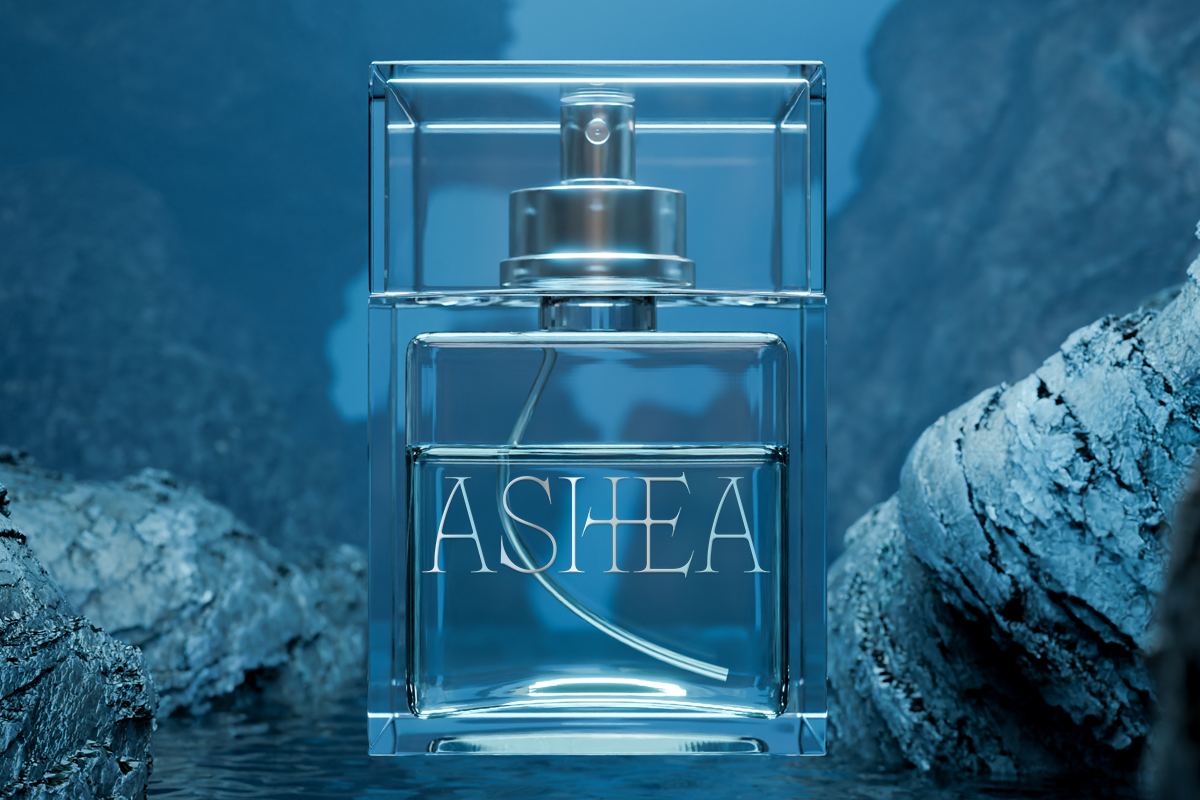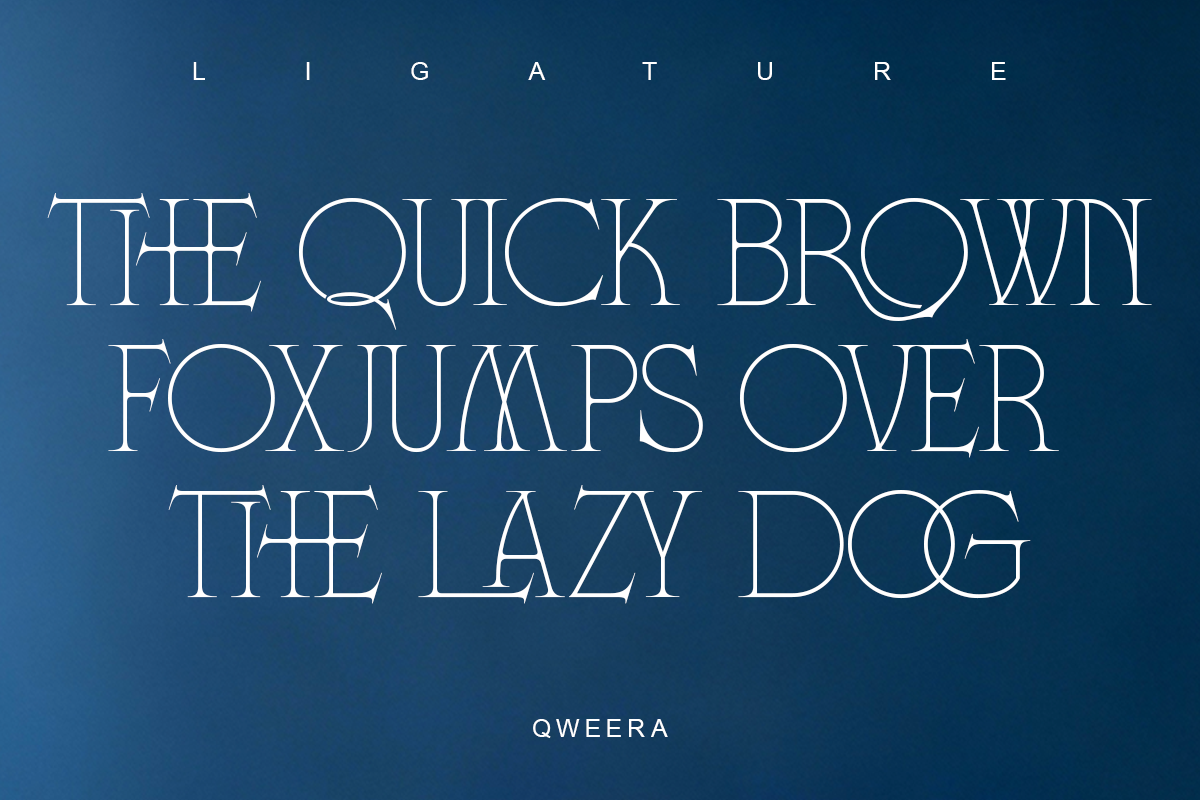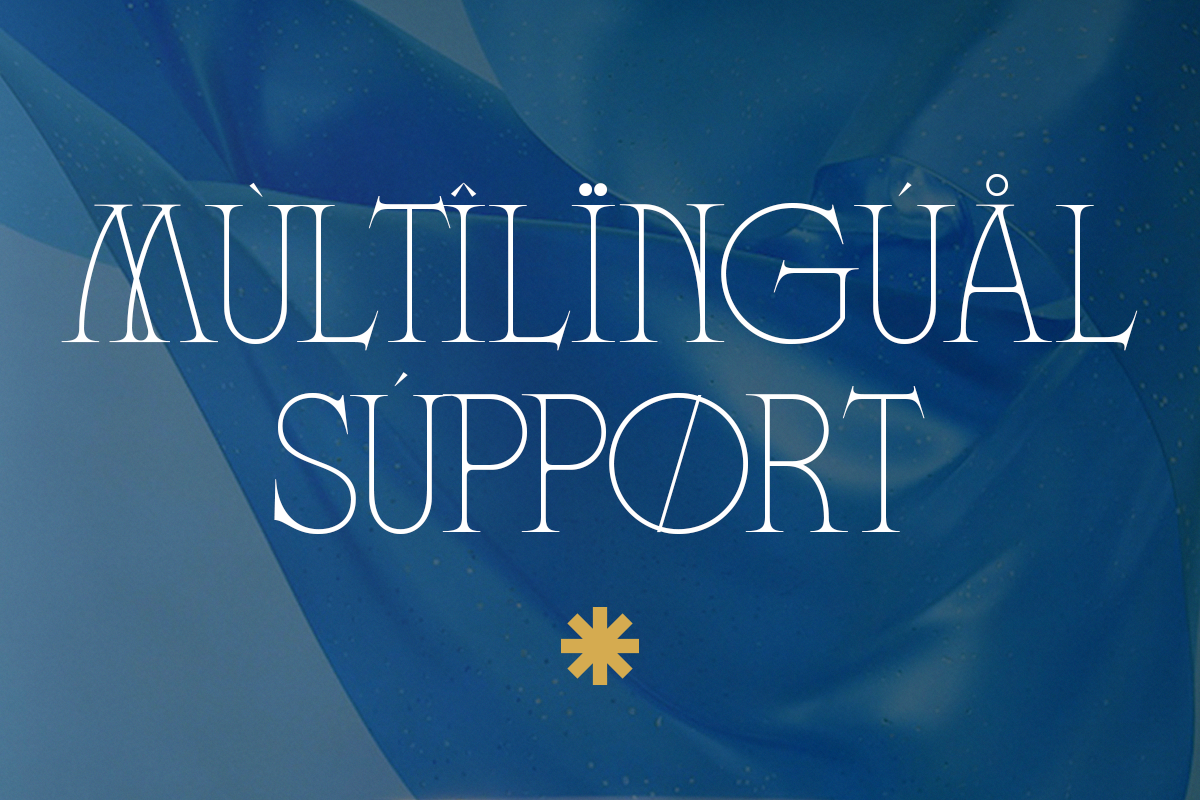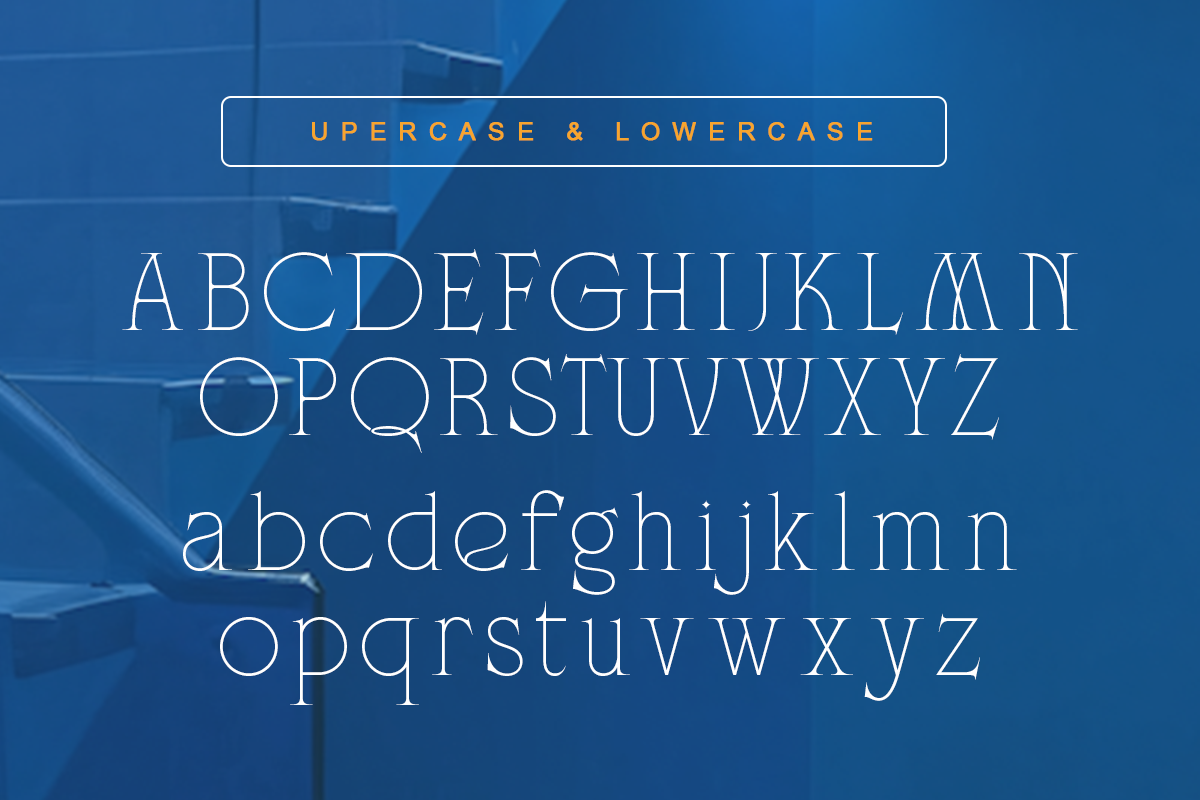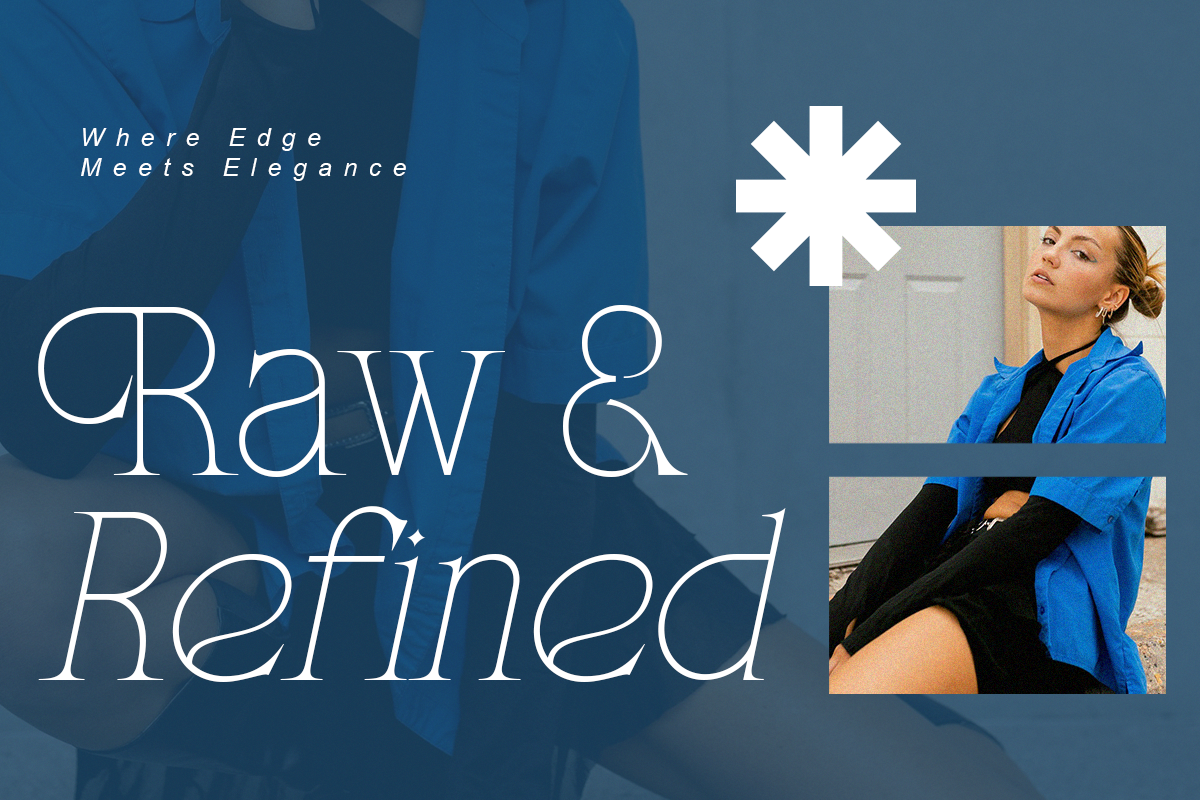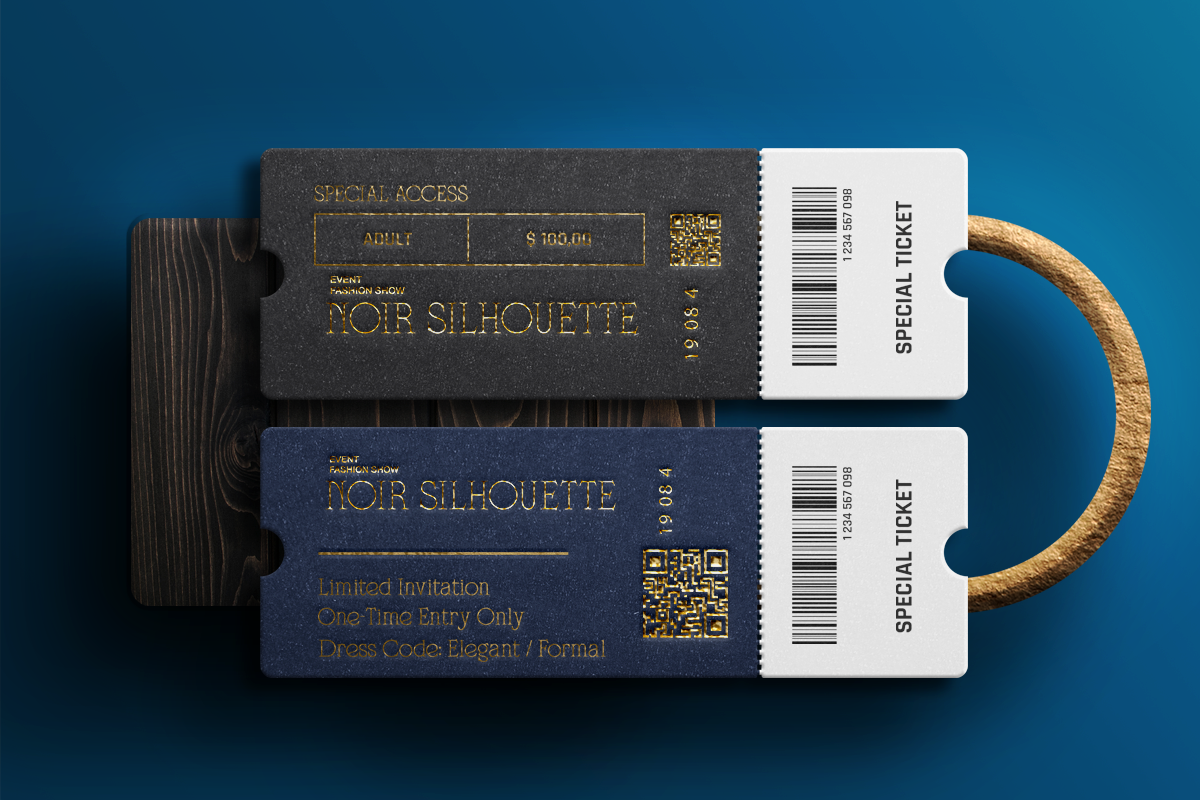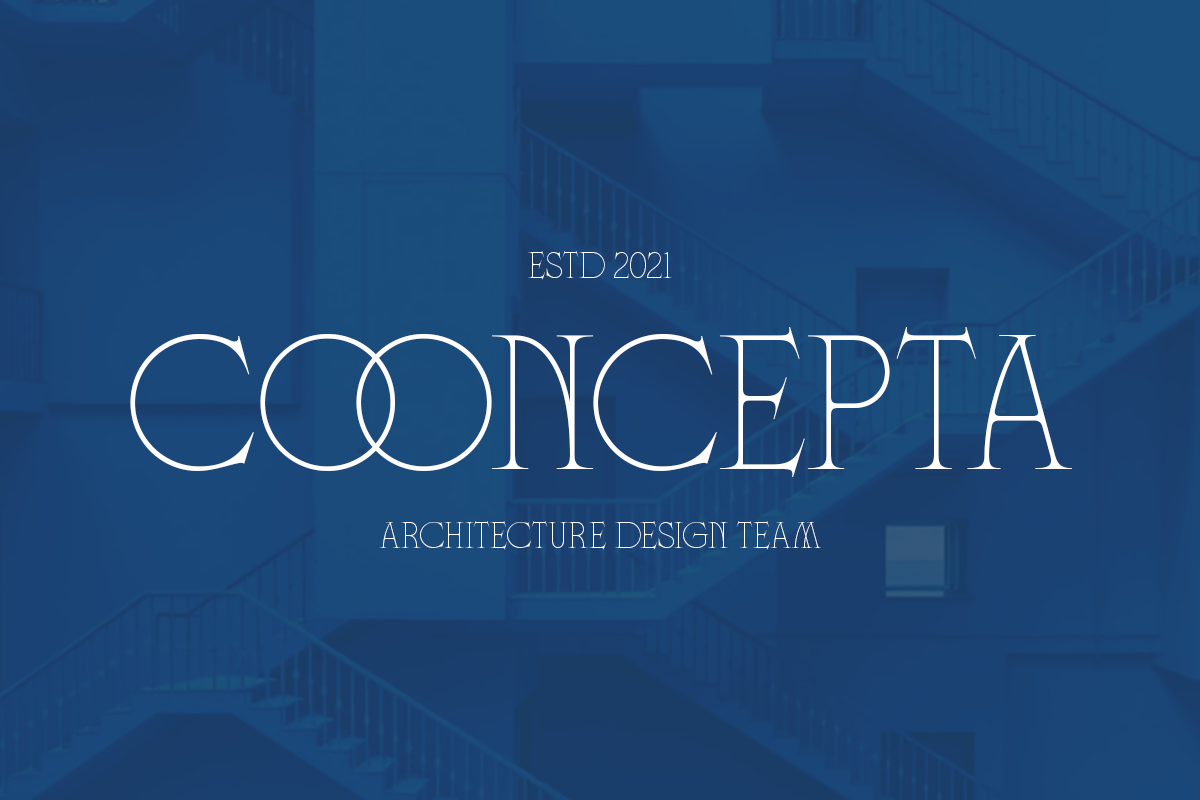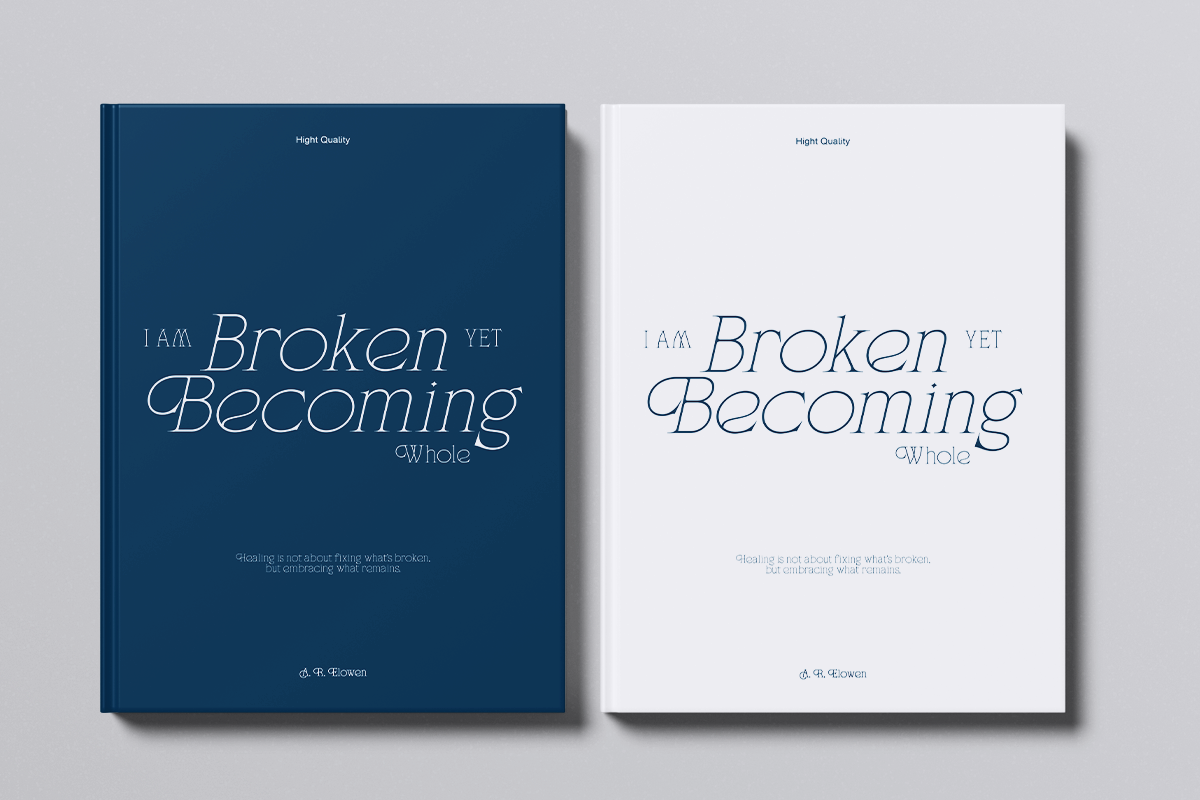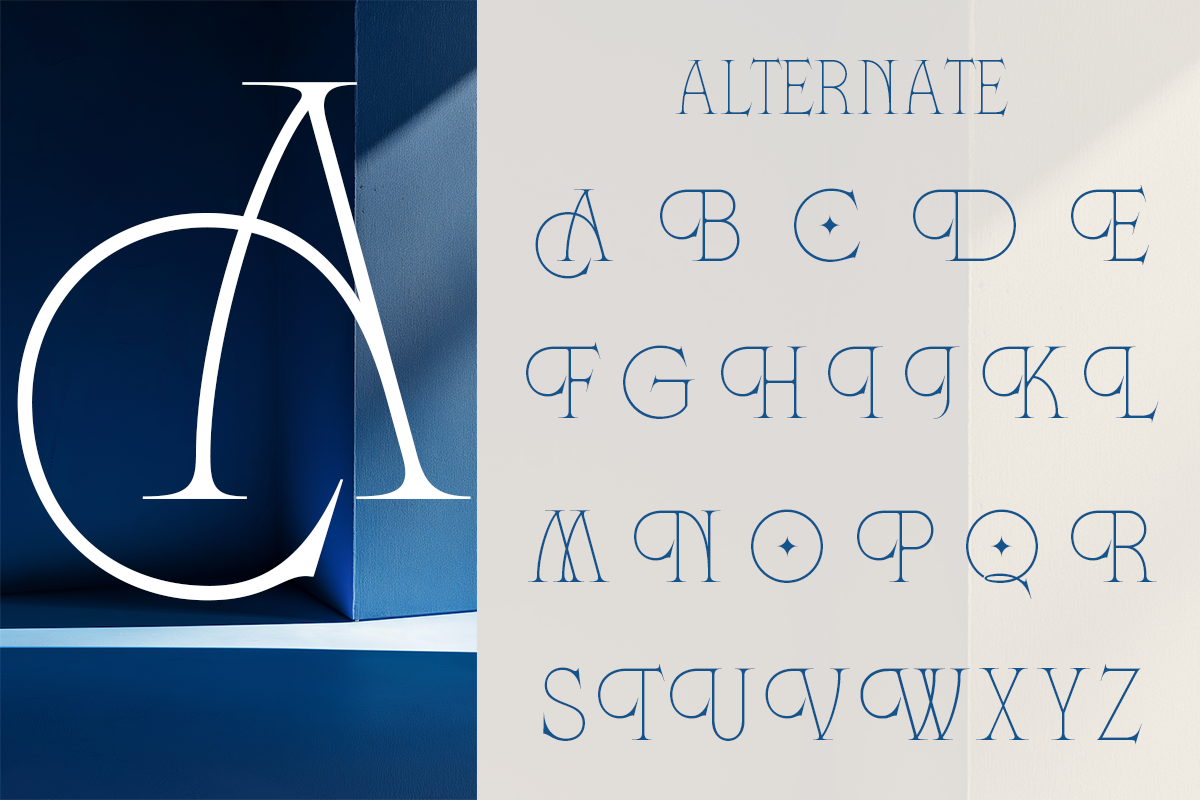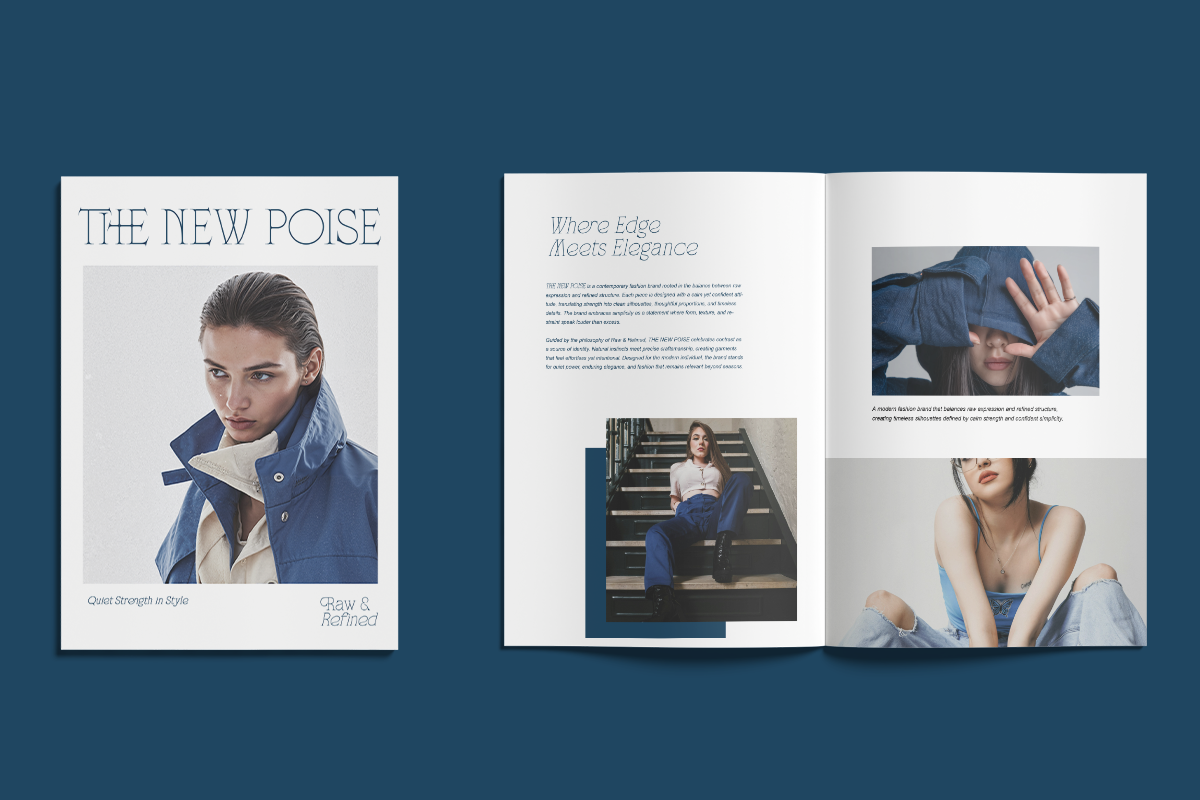
Fonca - Minimal Elegant Branding
Fonca is a modern minimal serif typeface designed for elegant branding and editorial layouts. Its clean structure and refined contrast create a sophisticated and timeless appearance.
Perfect for logos, fashion branding, packaging, and magazine headlines, Fonca delivers premium typography with a modern minimalist touch.
Designed for designers seeking clean and elegant display typography.
- Alternates & ligatures
- Minimal serif structure
- Regular & Italic